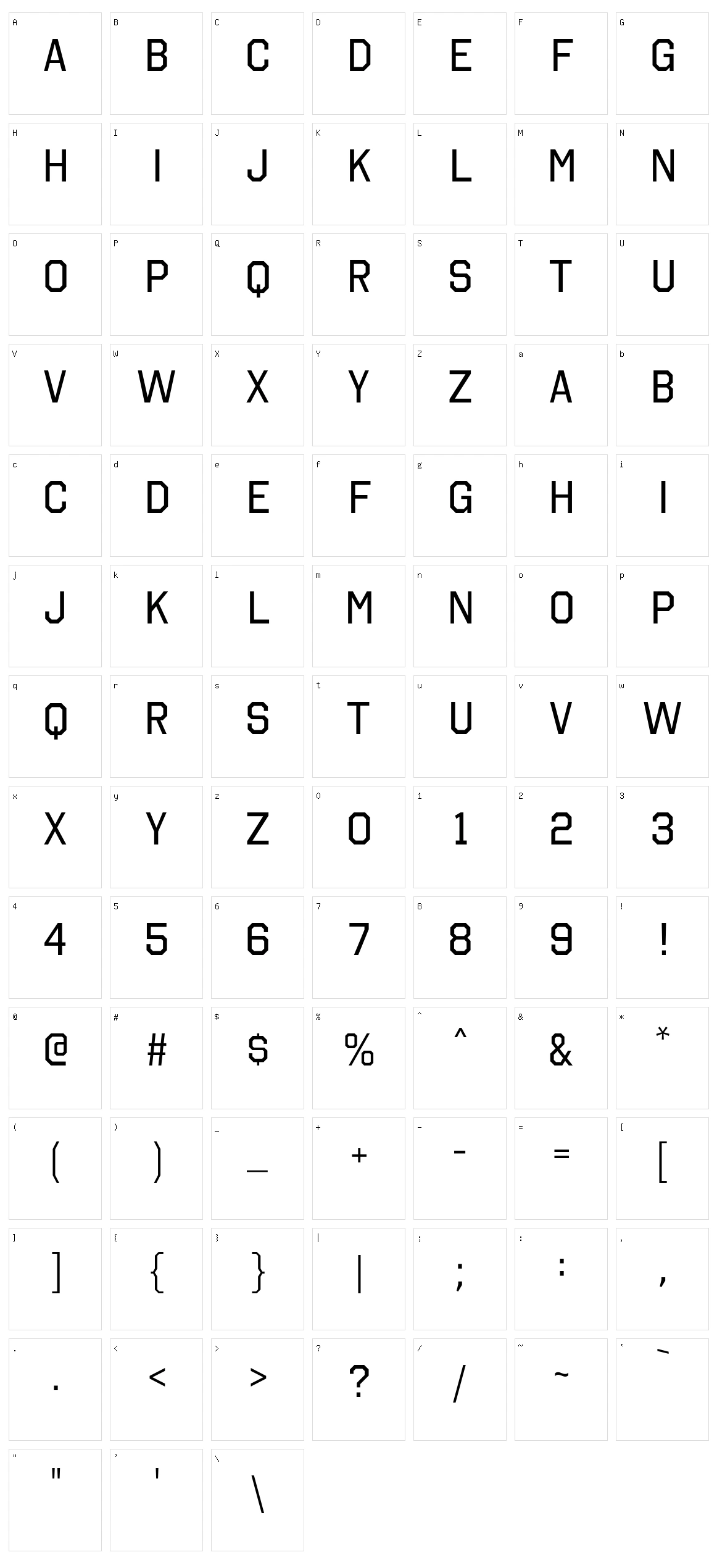
The free font Octin College Free is carefully designed by Typodermic Fonts, showcasing a thoughtful balance of creativity and usability and falls under the Old School font style. When you download the ZIP file, it contains only 165.76 KB of font files, making it lightweight and quick to download. Please review the license details below to understand permitted usage and distribution rights. If license information is not available, we recommend using this font for personal projects only or contacting the author directly for commercial usage permissions.